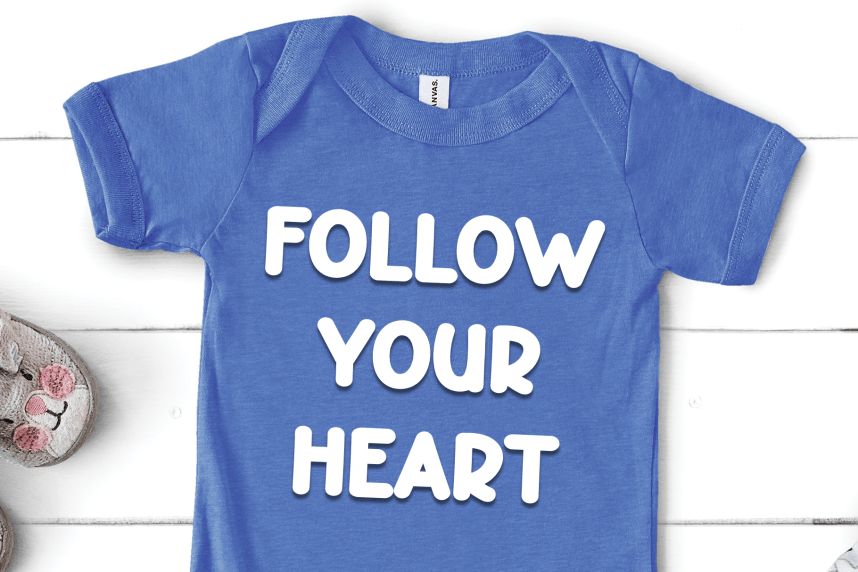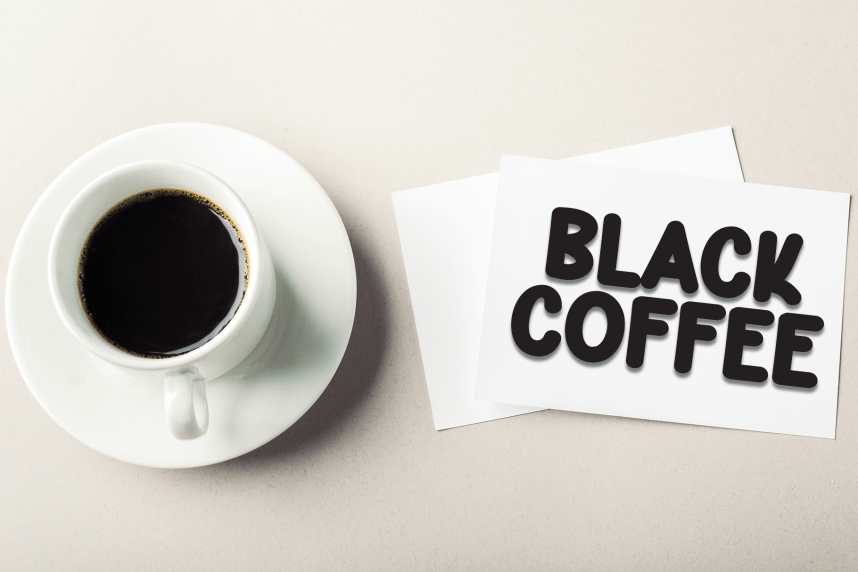
Notes Barbie – Playful Style Font
Notes Barbie – Playful Style Font is a sweet and friendly handwritten display font. Cute and fun, this font is ideal for writing wedding invitations, cards, or any other design that might need a playful touch!